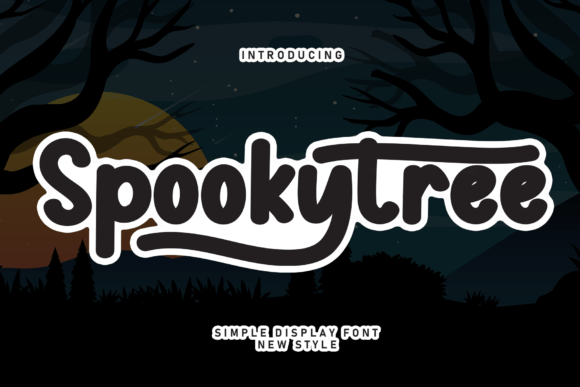
Step into the realm of Spookytree, a font family that's as captivating as a moonlit forest. Each letter emerges like a graceful dance of shadows, infused with the magic of calligraphy and the modernity of contemporary design. Spookytree isn't just a font; it's a journey into a world where imagination thrives. Crafted by the hands of andikastudio, this handwritten font exudes a sophisticated charm that instantly elevates any design project.
Feast your eyes on Spookytree's alluring curves, delicately balancing classic elegance with a refreshing twist of modernity. Its strokes are like whispered secrets, revealing a story of passion and creativity. Spookytree masterfully captures the essence of hand-lettering, bestowing upon your designs an unparalleled sophistication.
With Spookytree as your creative companion, your designs will blossom into enchanting works of art. Its versatility knows no bounds, adapting effortlessly to logos, branding, invitations, and any project yearning for a touch of elegance. Imagine your designs adorned with Spookytree's graceful presence, capturing attention and leaving an indelible impression.
Unleash your inner artist and embark on a creative adventure with Spookytree. Let your imagination run wild as you witness your designs transform into mesmerizing masterpieces. Spookytree isn't just a font; it's a portal to a world where visual artistry reigns supreme.